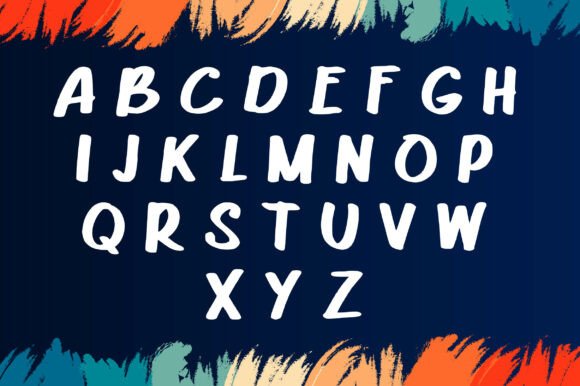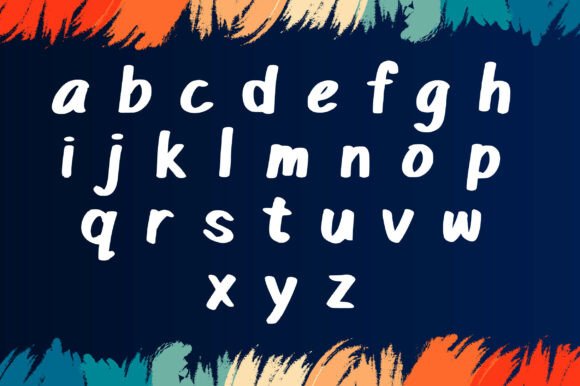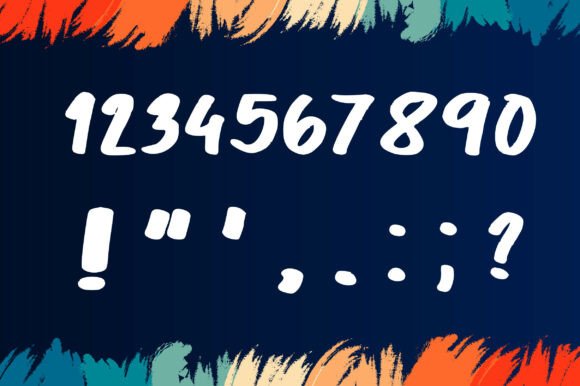
Unleash Your Creativity with the EBBrush Font: A Game-Changer for Comic-Style Artwork
In the world of digital art, typography plays a crucial role in bringing creative visions to life. For illustrators and comic artists, finding the perfect font that captures the essence of bold, comic-style artwork can be a daunting task. This is where the EBBrush Font comes in – a precision-tailored typography tool designed to unleash your creativity and add a unique touch to your artwork.
The Unique Feel of EBBrush Font
The EBBrush Font is crafted to mimic the look and feel of freehand sketching, giving your artwork a lively and charismatic appeal. Its dynamic style is characterized by a unique blend of bold lines, subtle imperfections, and a vigorous energy that sets it apart from other fonts. This distinctive feel is precisely what makes EBBrush a go-to choice for artists seeking to infuse their work with an authentic handwritten touch.
Why EBBrush Font is a Favorite Among Illustrators and Comic Artists
Illustrators and comic artists often strive to create artwork that stands out and resonates with their audience. The EBBrush Font helps achieve this goal by offering a typography solution that:
- Captures the essence of comic-style artwork: With its bold lines and dynamic style, EBBrush Font is tailored to meet the demands of comic-style artwork, making it an ideal choice for artists in this niche.
- Adds an authentic handwritten touch: The font’s unique feel and imperfections mimic the look of freehand sketching, giving your artwork a personal and authentic touch.
- Enhances creativity and expression: By providing a versatile typography tool, EBBrush Font empowers artists to experiment with different styles and techniques, pushing the boundaries of their creativity.
Key Features of the EBBrush Font
The EBBrush Font boasts several key features that make it an indispensable tool for designers and crafters:
- Dynamic style: The font’s dynamic style ensures that your artwork radiates energy and movement, capturing the attention of your audience.
- Bold lines: EBBrush Font features bold lines that add depth and dimension to your artwork, making it perfect for comic-style illustrations.
- Subtle imperfections: The font’s subtle imperfections and irregularities mimic the look of freehand sketching, giving your artwork a unique and authentic feel.
- Versatility: EBBrush Font is designed to be versatile, allowing you to experiment with different styles, techniques, and applications.
Tips for Getting the Most Out of the EBBrush Font
To maximize the potential of the EBBrush Font, consider the following tips:
- Experiment with different sizes and styles: Play around with different font sizes and styles to find the perfect combination for your artwork.
- Combine with other fonts: Mix and match EBBrush Font with other typography tools to create unique and visually appealing artwork.
- Pay attention to spacing and kerning: Adjust the spacing and kerning of your text to ensure a cohesive and polished look.
The EBBrush Font is a game-changer for illustrators and comic artists seeking to add a bold, comic-style touch to their artwork. With its unique feel, dynamic style, and versatility, this typography tool is poised to unleash your creativity and take your artwork to the next level. Whether you’re a seasoned designer or a crafty enthusiast, the EBBrush Font is an indispensable addition to your creative arsenal.